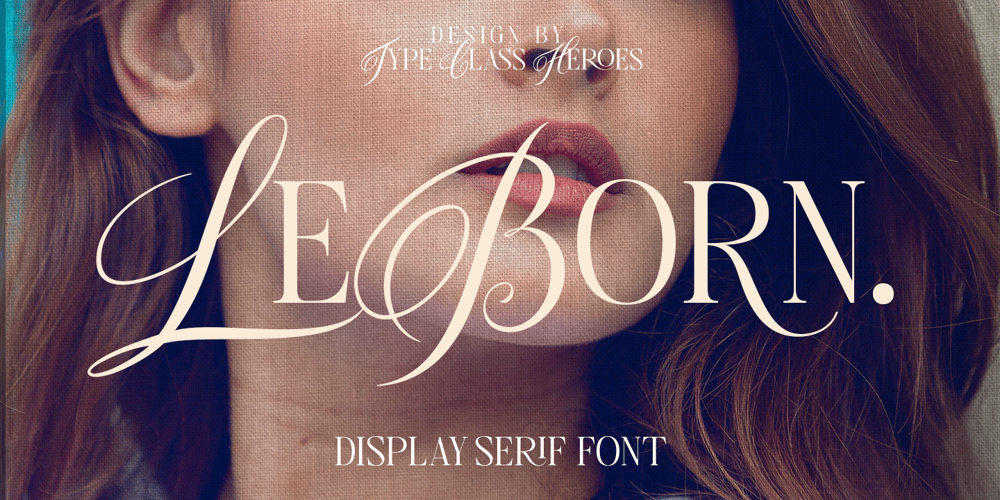
Le Born Font Family was designed by Pande Made and published by TypeClassHeroes. Le Born contains 1 styles and family package options. Hello I’m really excited to introduce,LeBorn is a luxury calligraphy combine with modern serif ligatures and special alternative glyphs so you can create a lots with layouts and compositions. LeBorn perfect for poster design, book covers, merchandise, fashion campaigns, newsletters, branding, advertising, magazines, greeting cards, album covers, and quote designs and more.Whats Included? Uppercase & Lowercase Number & Symbol International Glyphs Multilingual support Feature UPPERCASE Lowercase Number & Symbol International Glyphs Alternative Ligature If you need anything else just shoot me an message